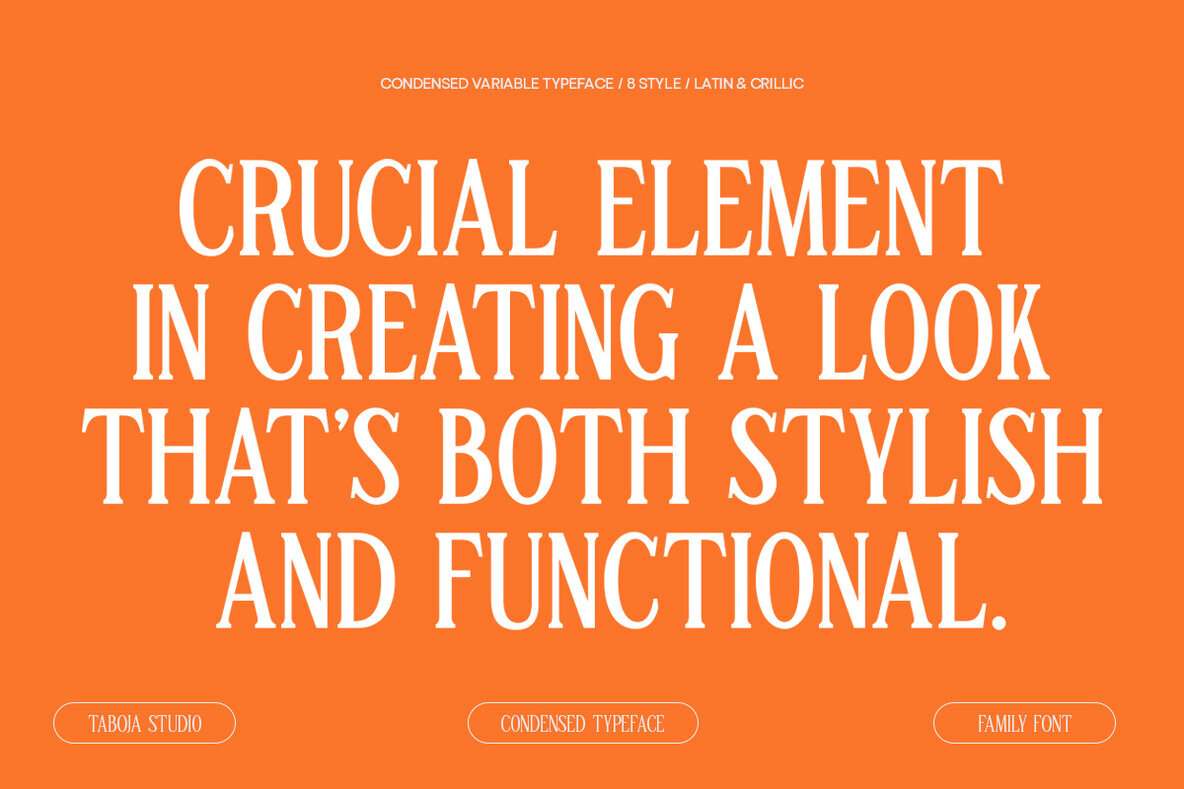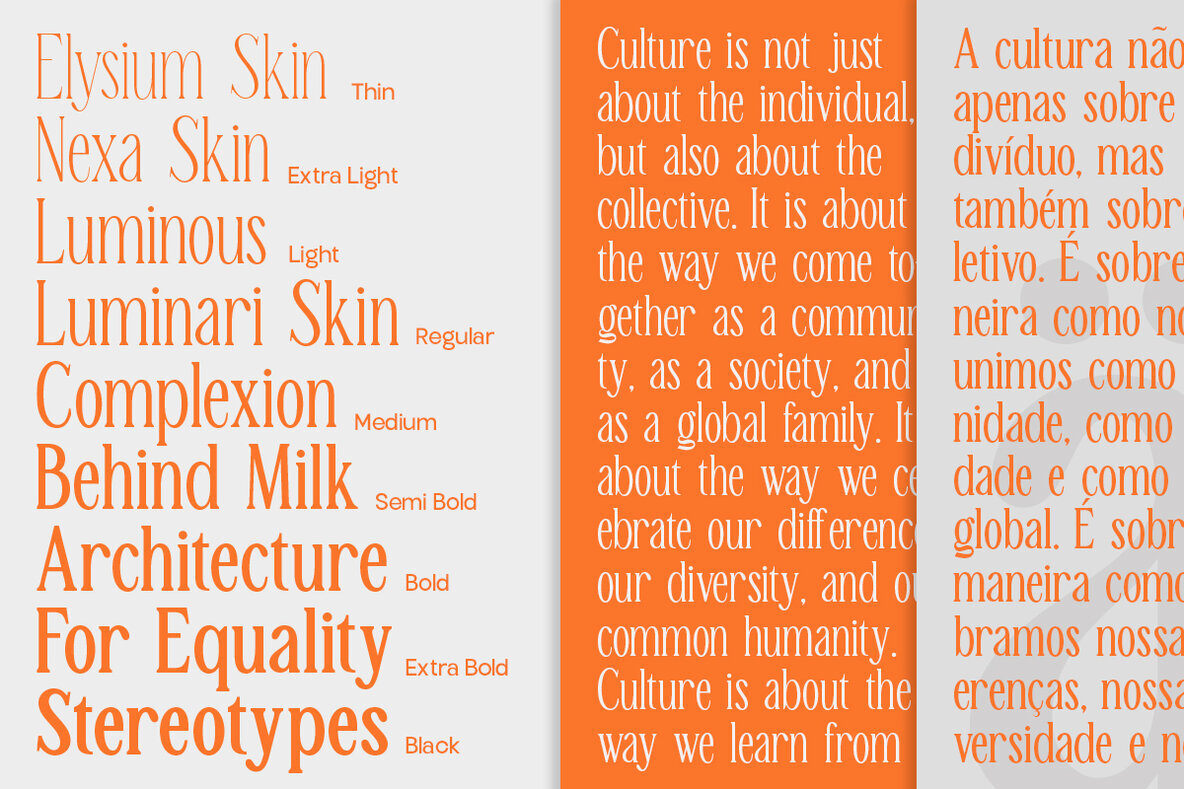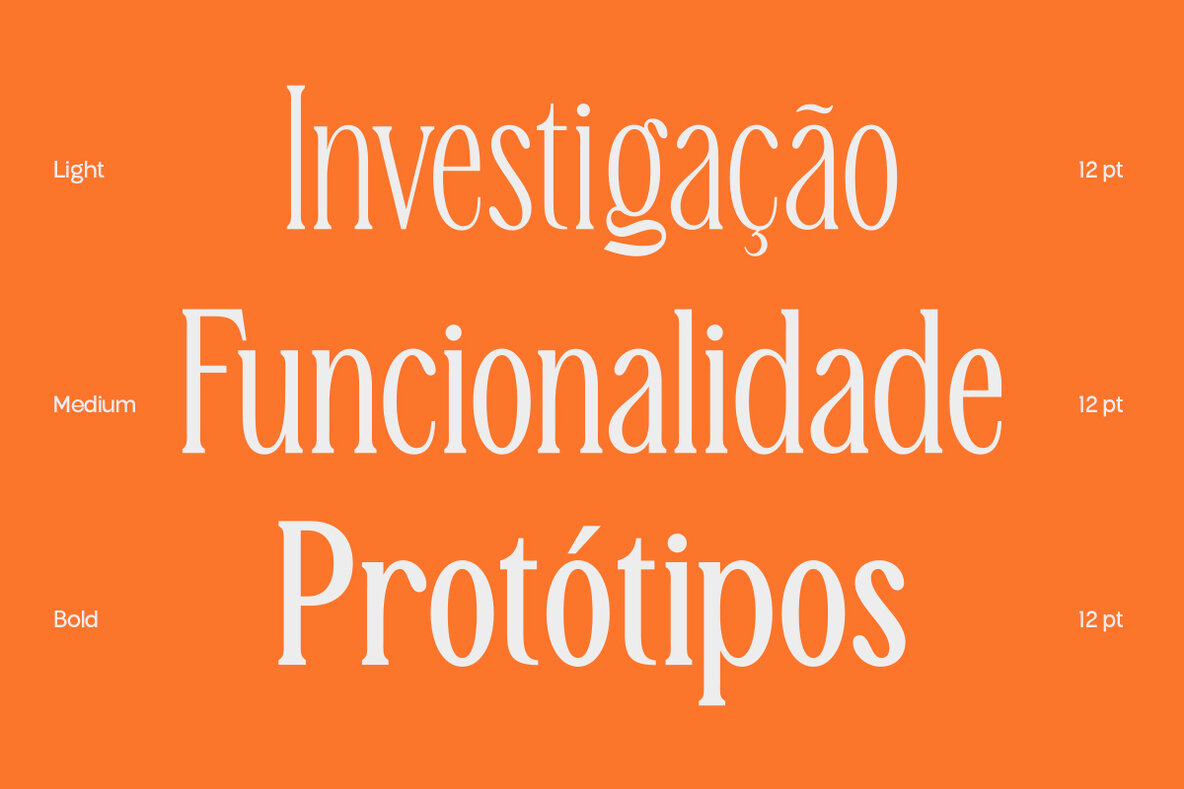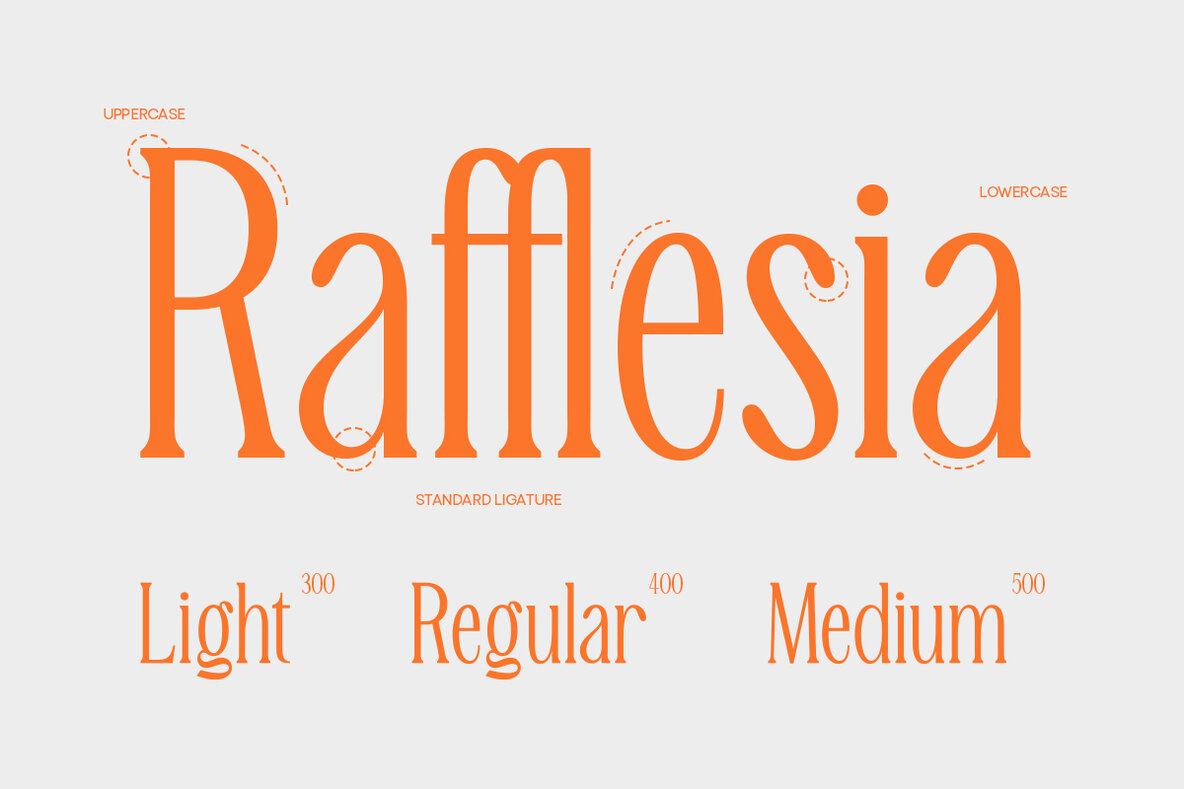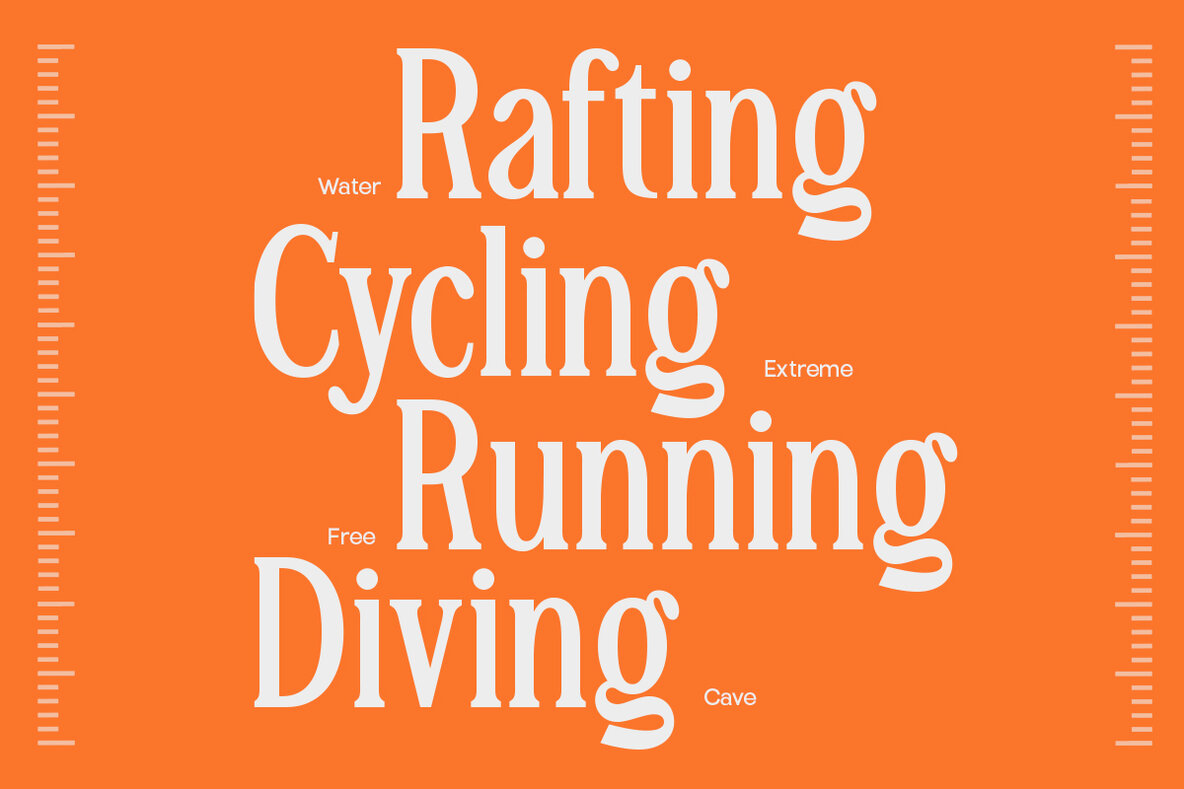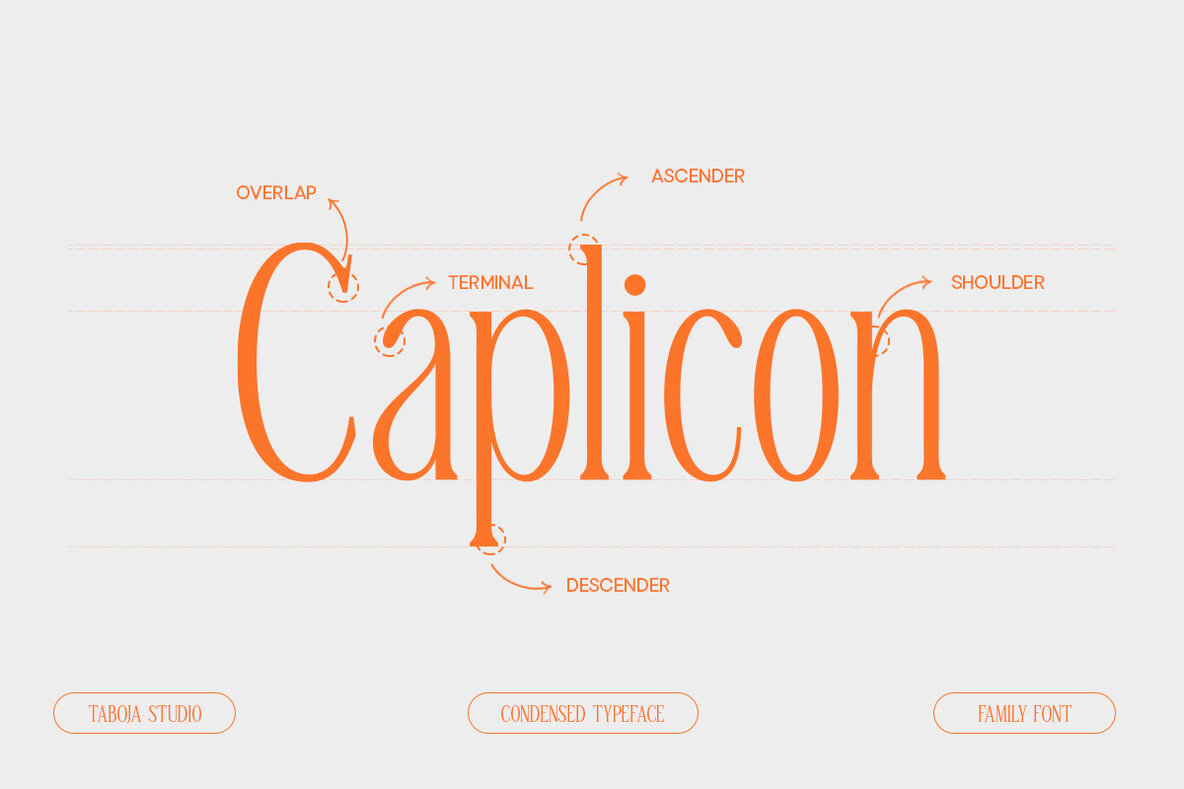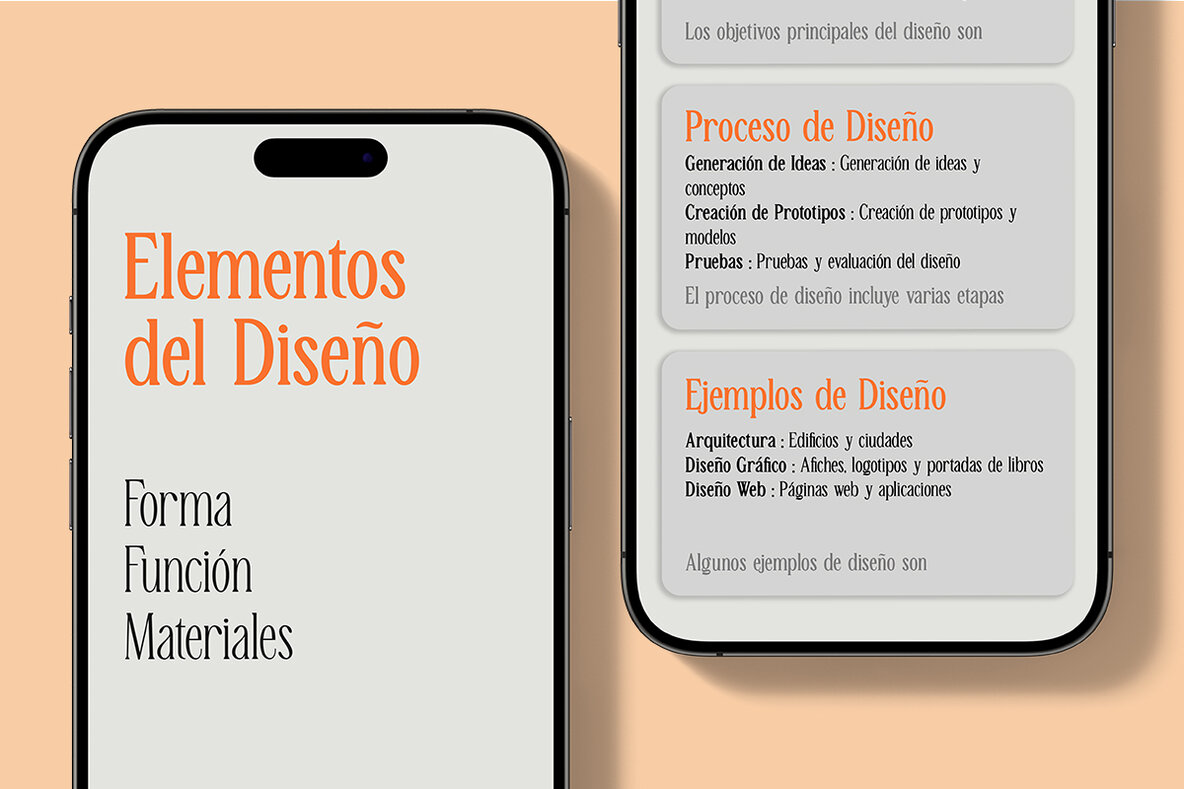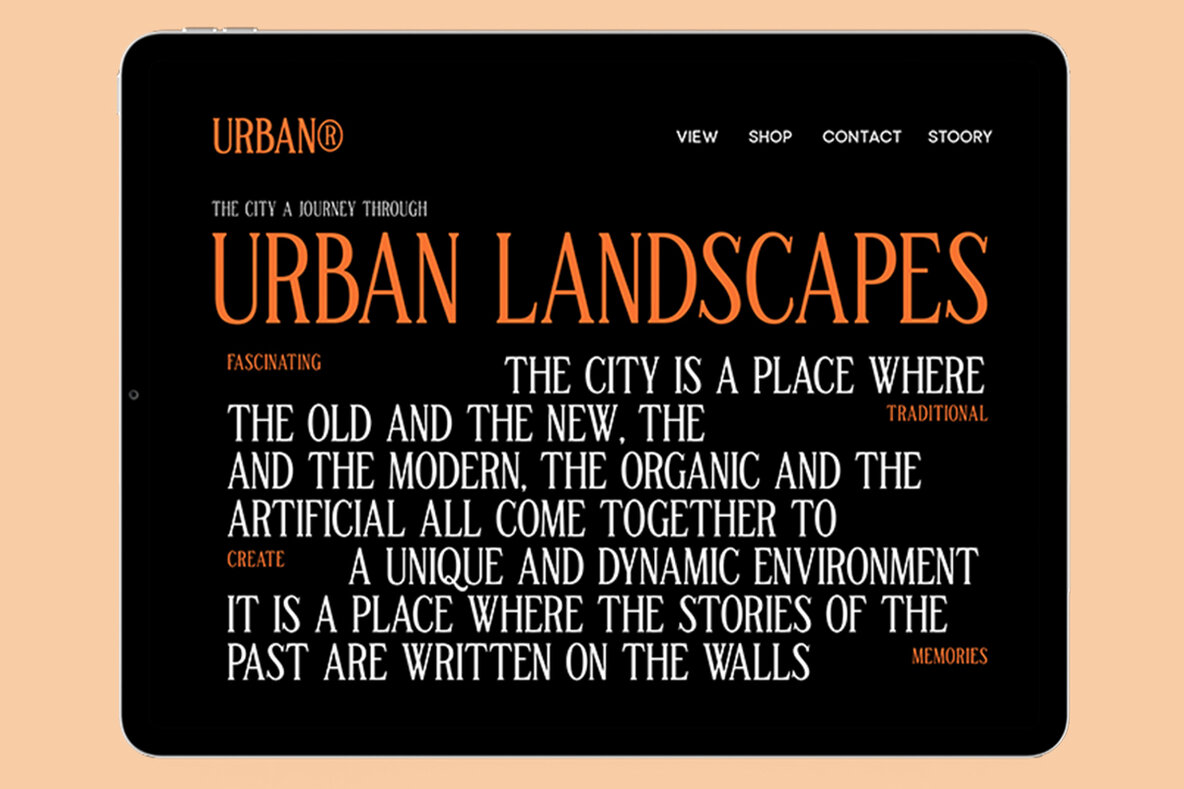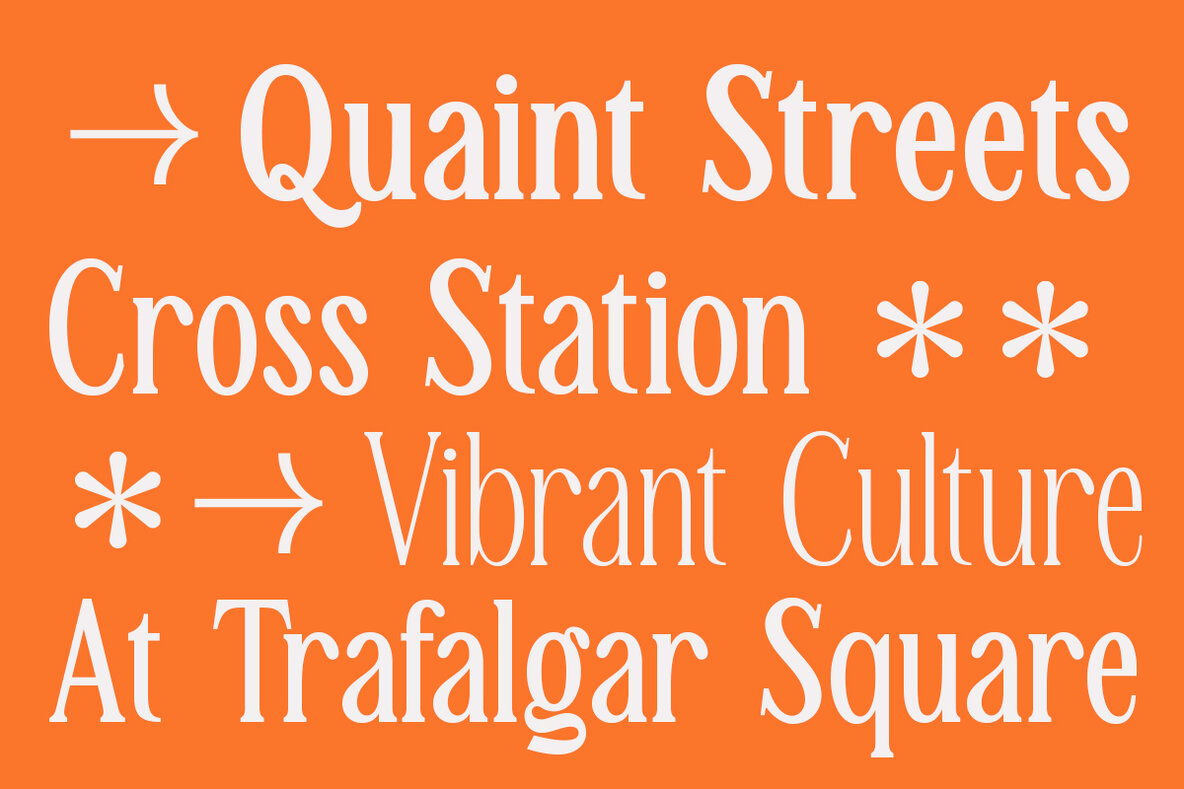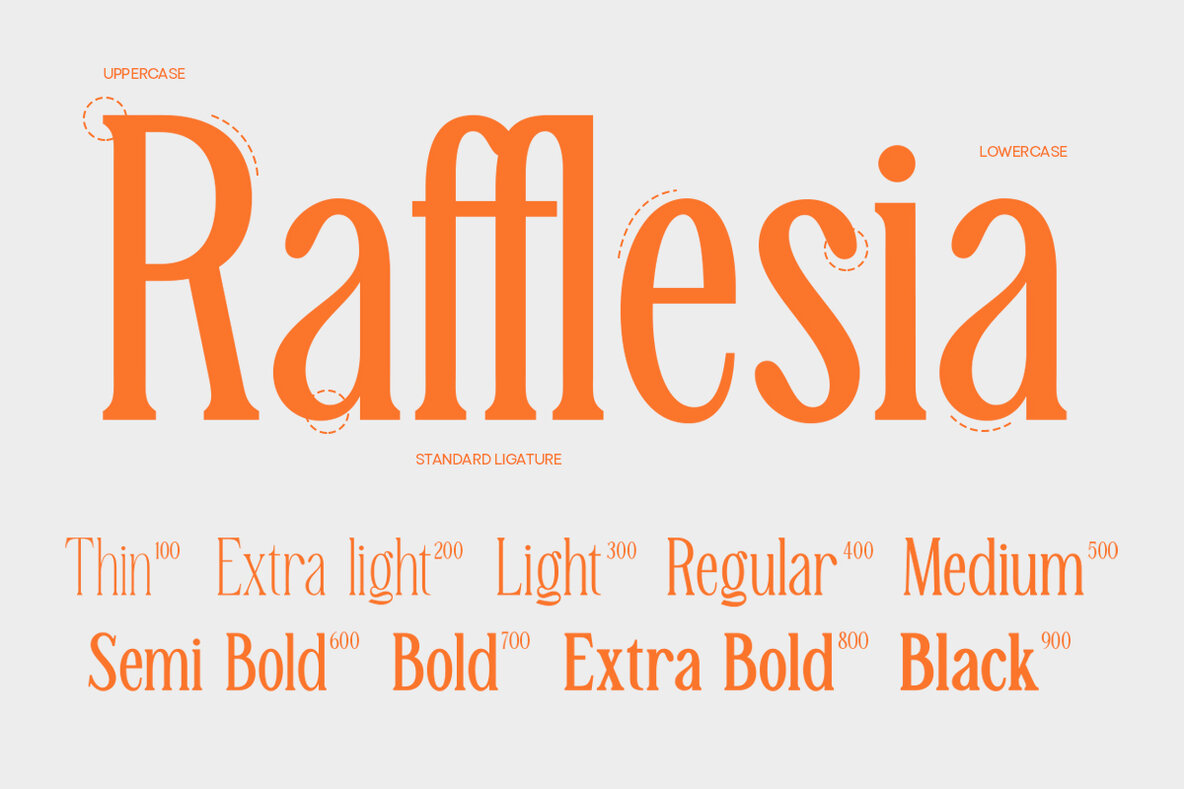
TBJ Malta Font
TBJ Malta is a serif typeface designed with elegance and ease of use in mind. It offers a classic yet modern look, providing flexibility for various designs. TBJ Malta delivers captivating visuals and clarity in every letter. TBJ Malta is a beautifully nostalgic typeface that looks incredible in both large and small settings as a display and body text. With intuitive design and balanced proportions, Malta is easy to use in different contexts, ensuring optimal reading comfort for both long and short texts. With 9 variants from Light to Black, TBJ Malta offers maximum flexibility for all design needs. While using this product, if you encounter any problem or spot something we may have missed, please don't hesitate to drop us a message. We'd love to hear your feedbacks in order to further fine-tune our products.